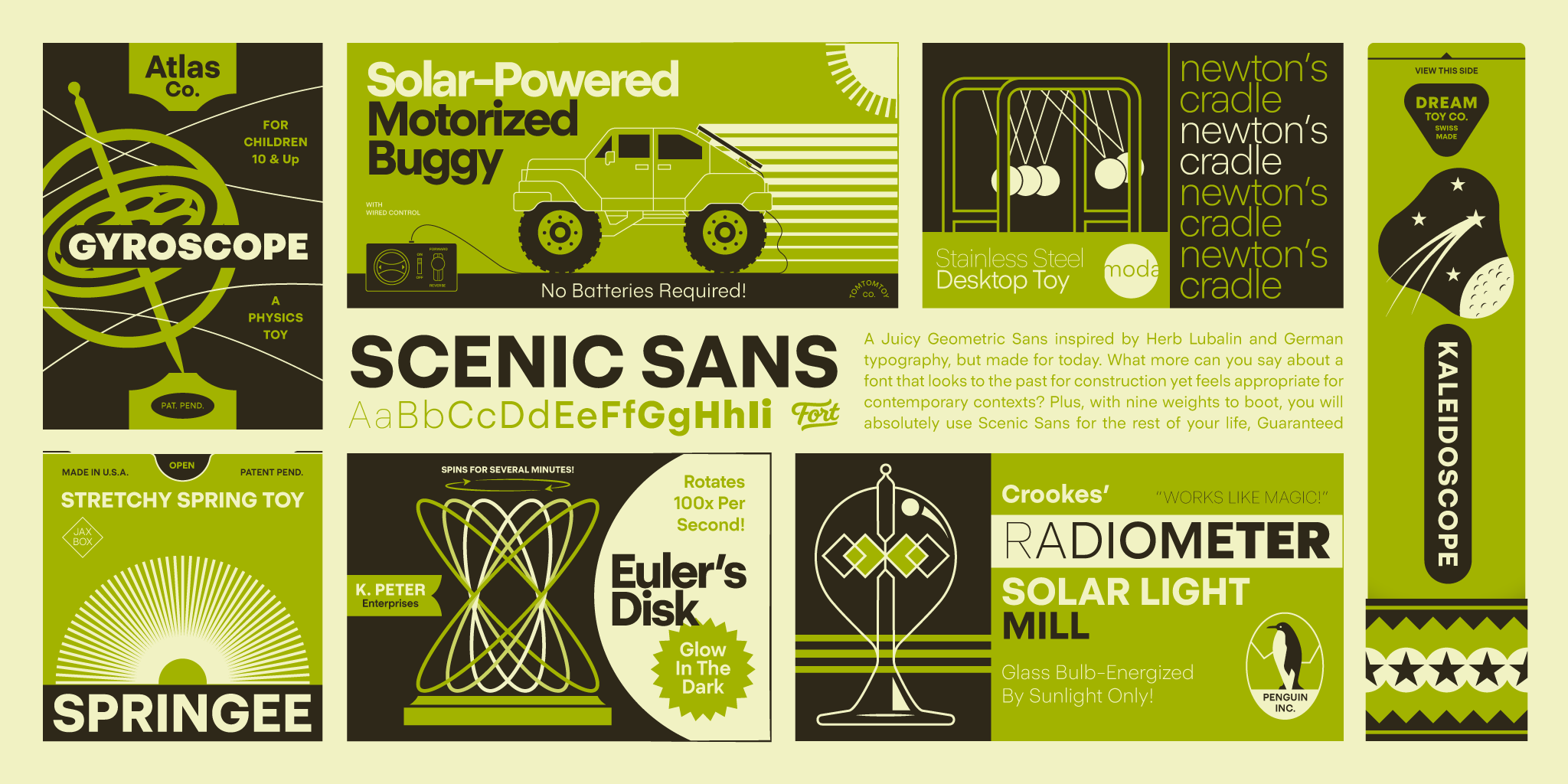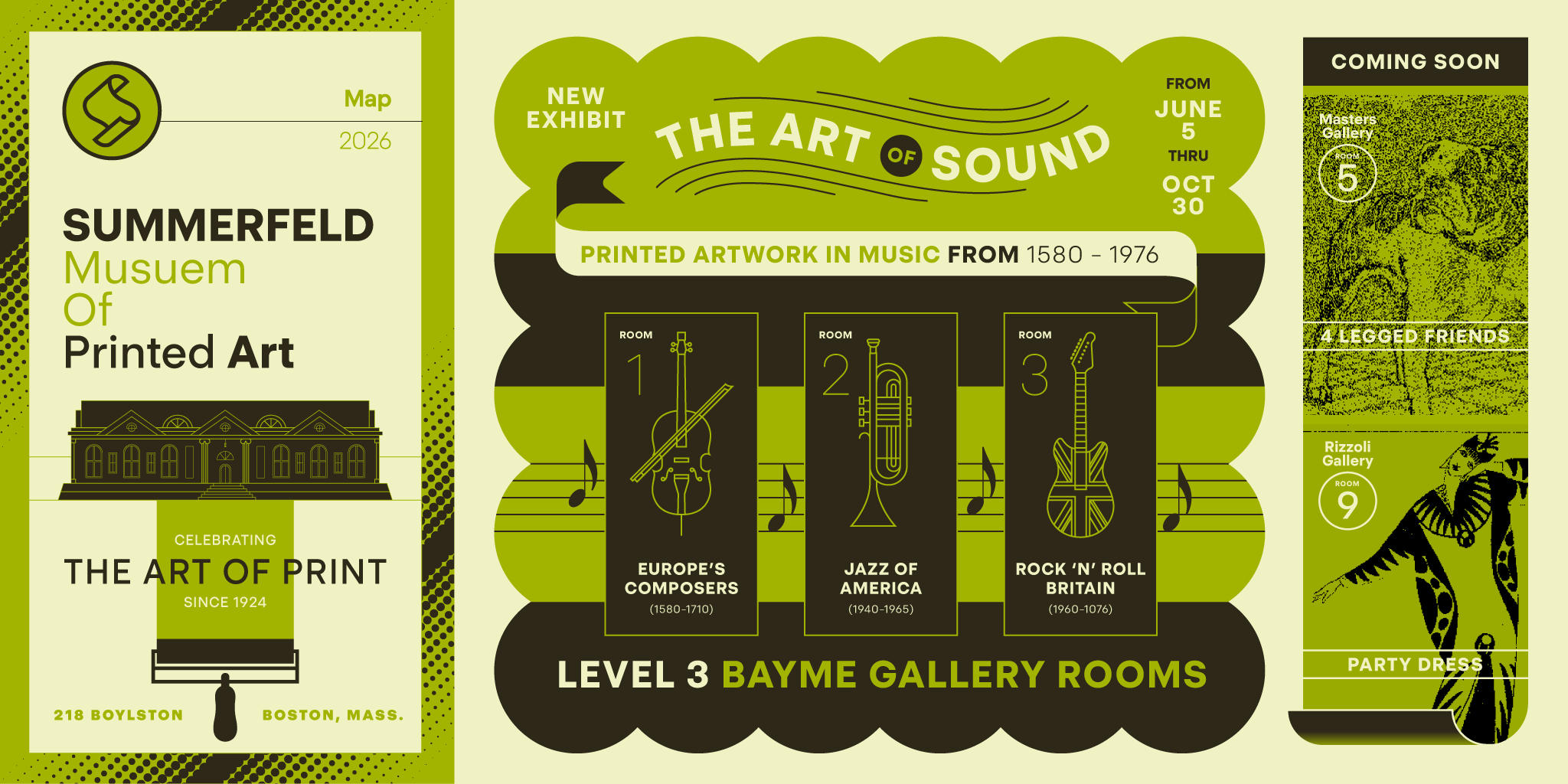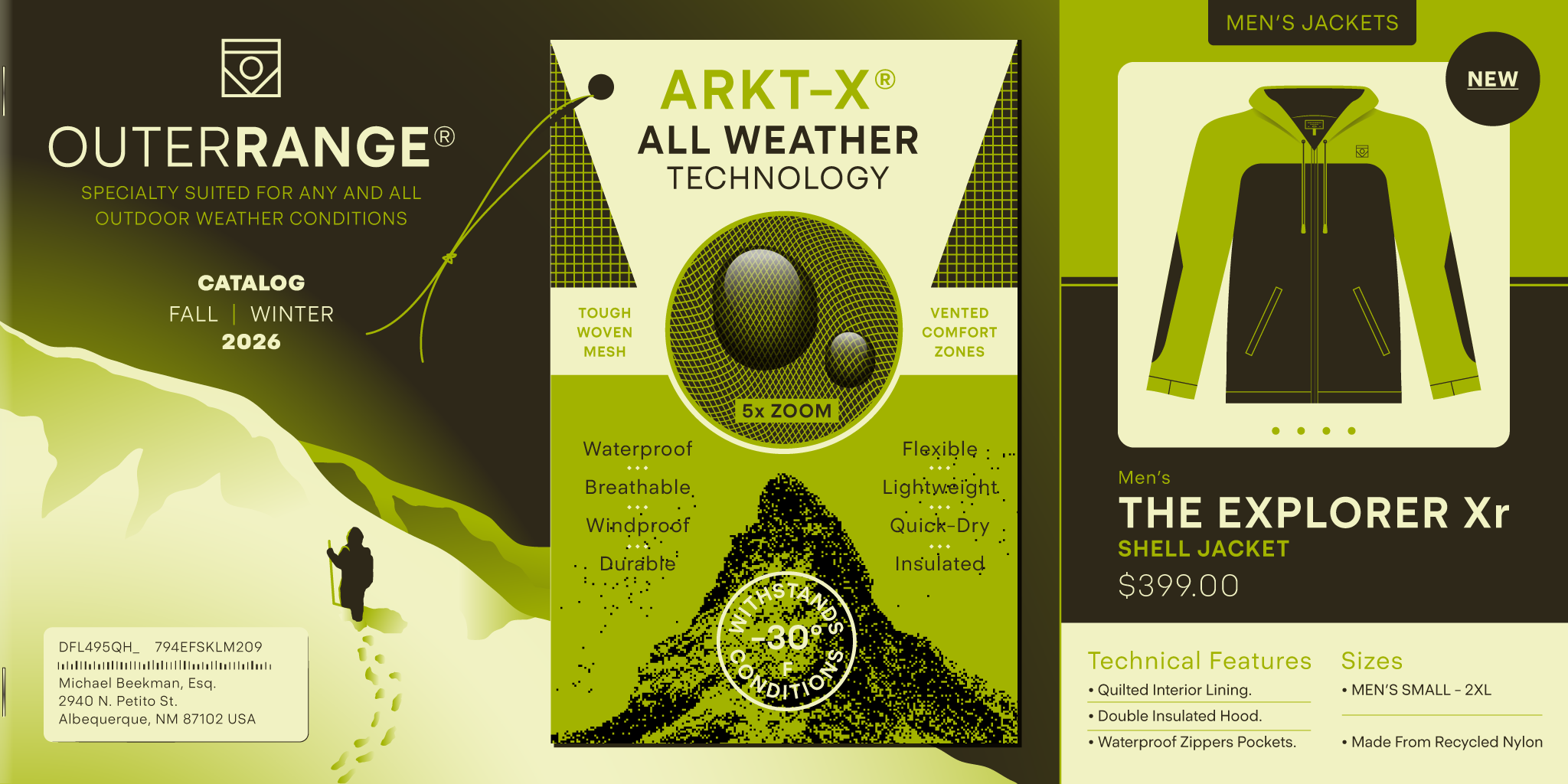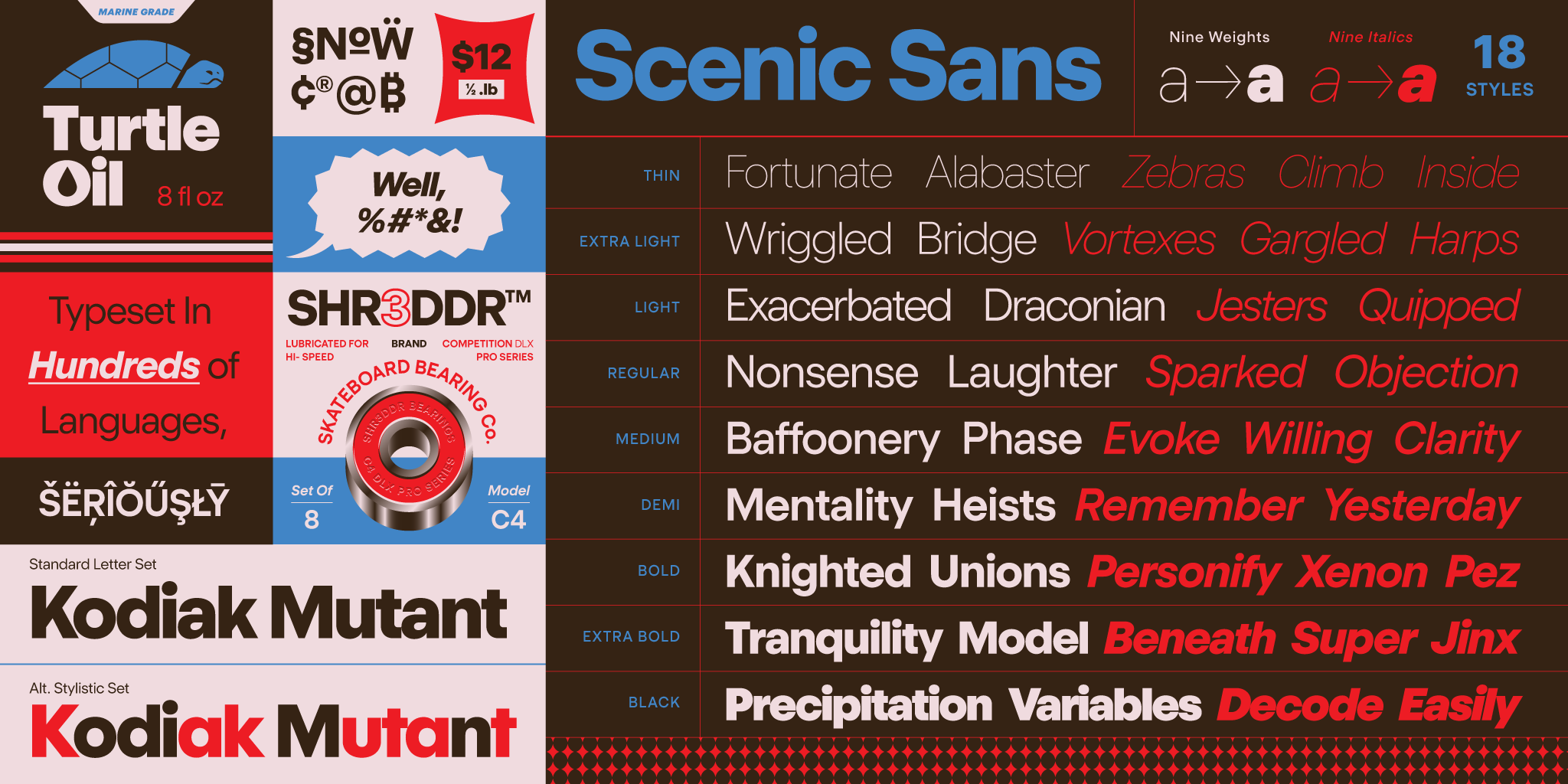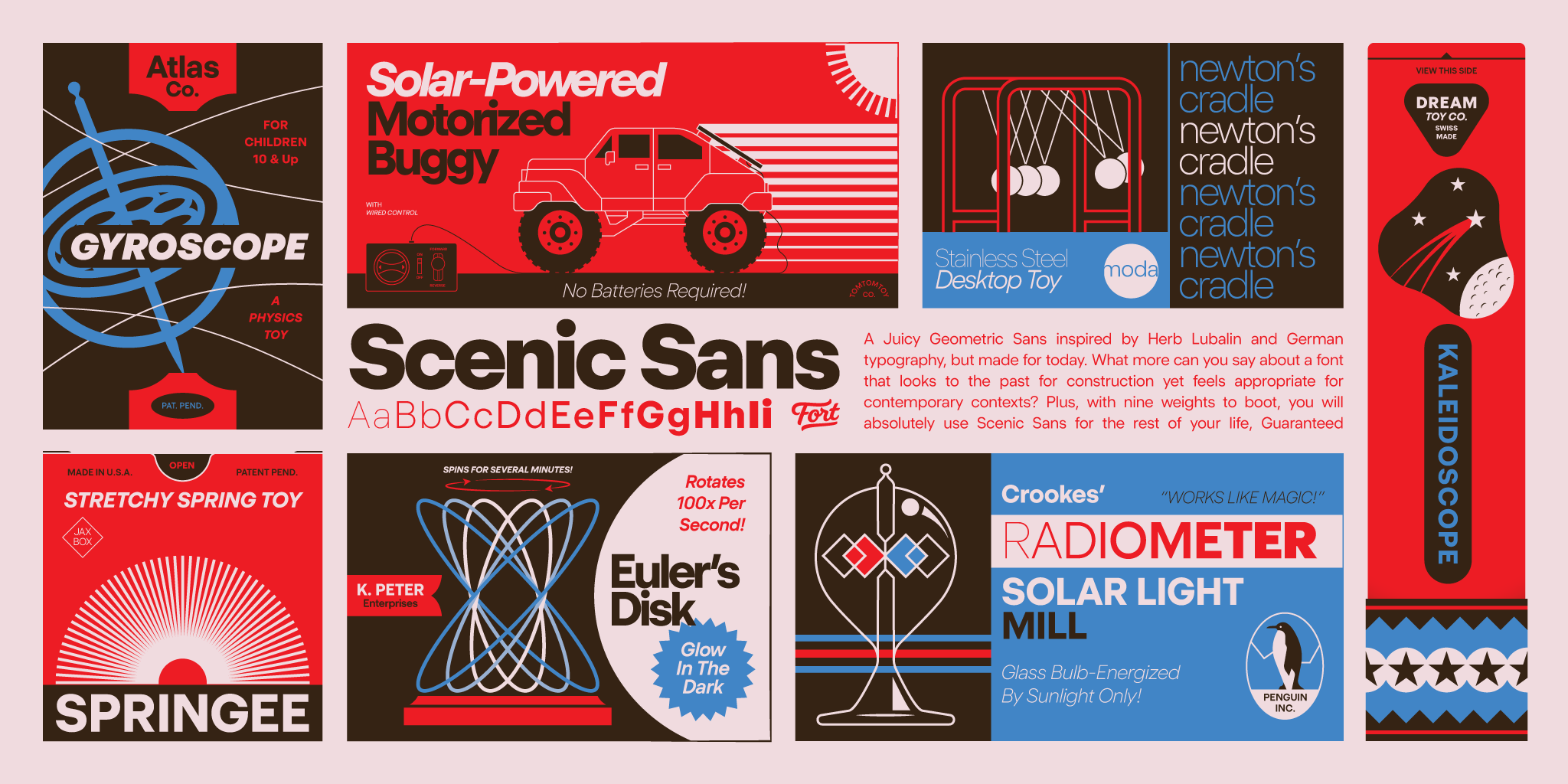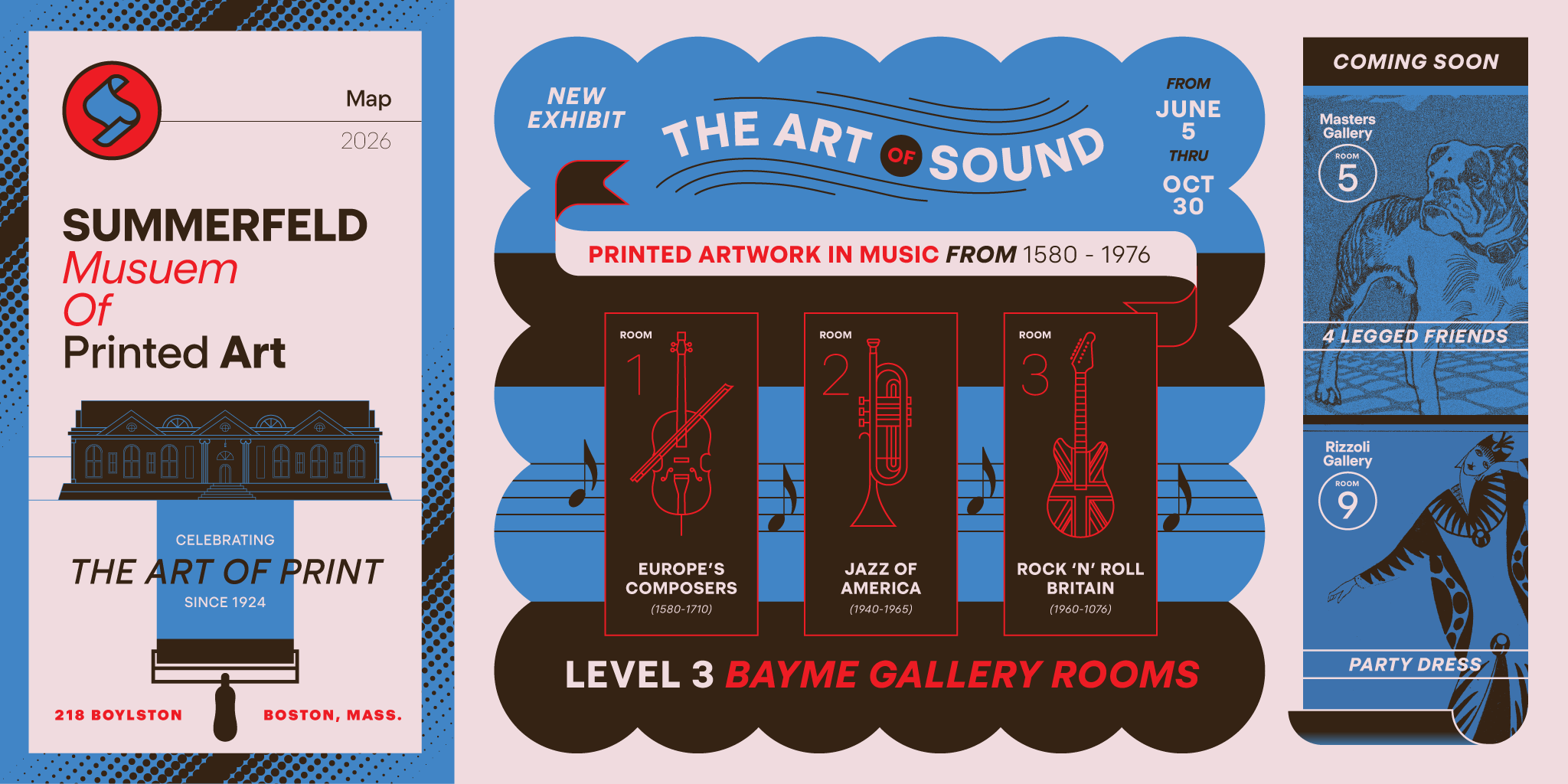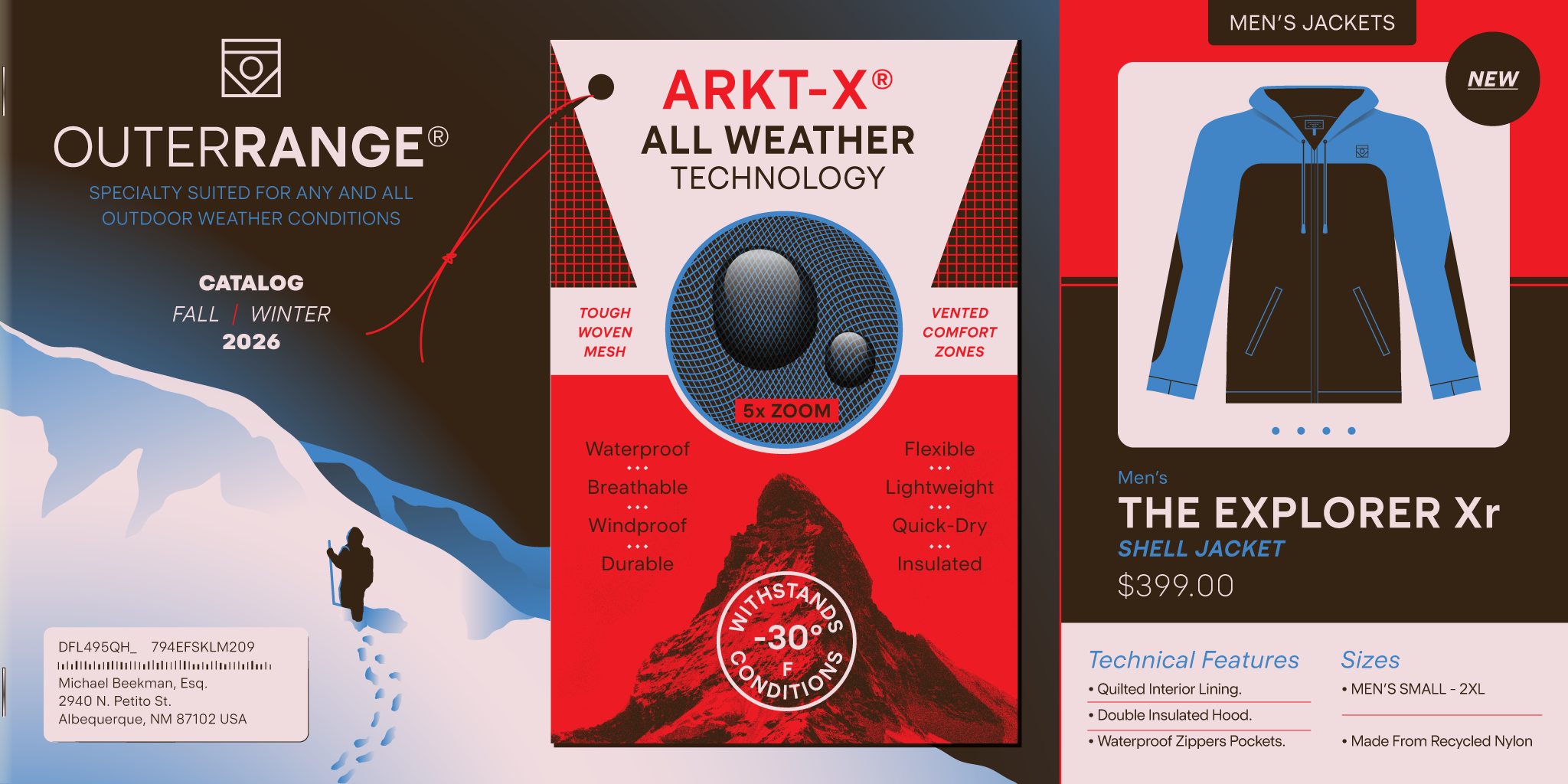
Scenic Sans
Take the scenic route.
Set the scene with this geometric grotesk inspired by the rare gem of Digiset and the vast landscape of Helvetica. Digiset was one of the first digital typefaces ever created for screens. Helvetica and its offshoots have been a backbone of screen UI since the first-gen iPhone. As we looked at merging old and new worlds, we believe we found something special. See if Scenic wins your heart as well, or check out its sibling Route Sans
Clear, capable, and built for sustained use across a variety of settings, Scenic Sans is now available in 9 weights from Thin to Black with matching italics and a variable version. The family provides comprehensive coverage for editorial, branding, wayfinding, and information design.